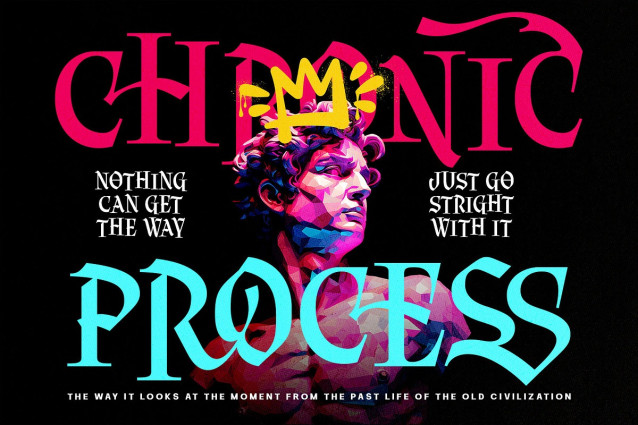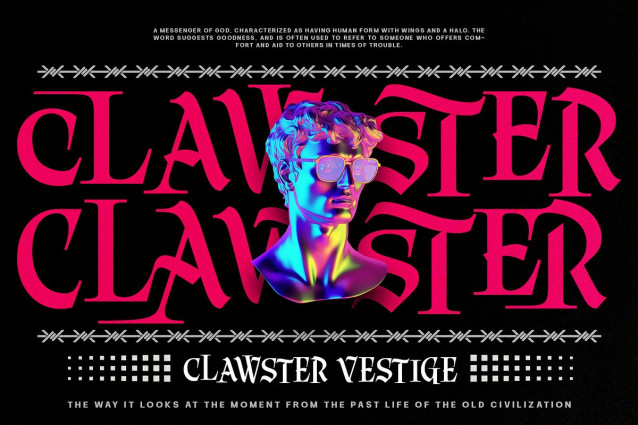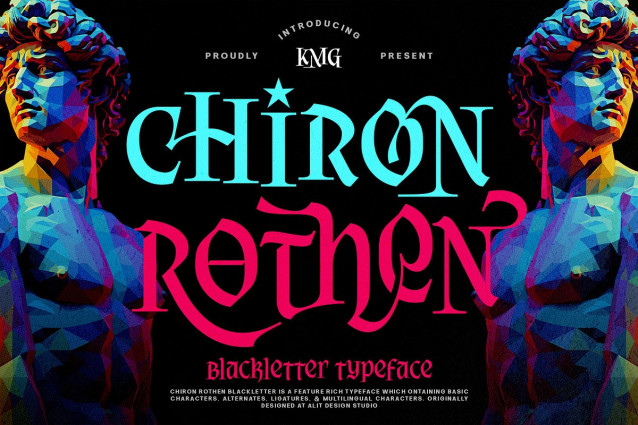
Chiron Rothen Font
Chiron Rothen Font a modern blackletter typeface that perfectly bridges the gap between classic medieval typography and contemporary urban design. Crafted with meticulous attention to detail, this feature-rich font brings a bold, artistic, and dynamic edge to your design projects.
While Chiron Rothen retains the dramatic, gothic essence of traditional blackletter, its fluid curves and sharp angles make it incredibly versatile for today’s modern aesthetics—from high-end streetwear to striking editorial designs.
What truly sets Chiron Rothen apart is its massive collection of alternate characters and ligatures. With an astounding 12 Stylistic Sets for Uppercase, 5 Stylistic Sets for Lowercase, and an extensive library of Uppercase, Lowercase, and Triplecase Ligatures, you have limitless possibilities to customize your typography. Whether you want a clean, highly legible look or a highly ornate, custom-lettered vibe, Chiron Rothen gives you the tools to create unique wordmarks instantly.